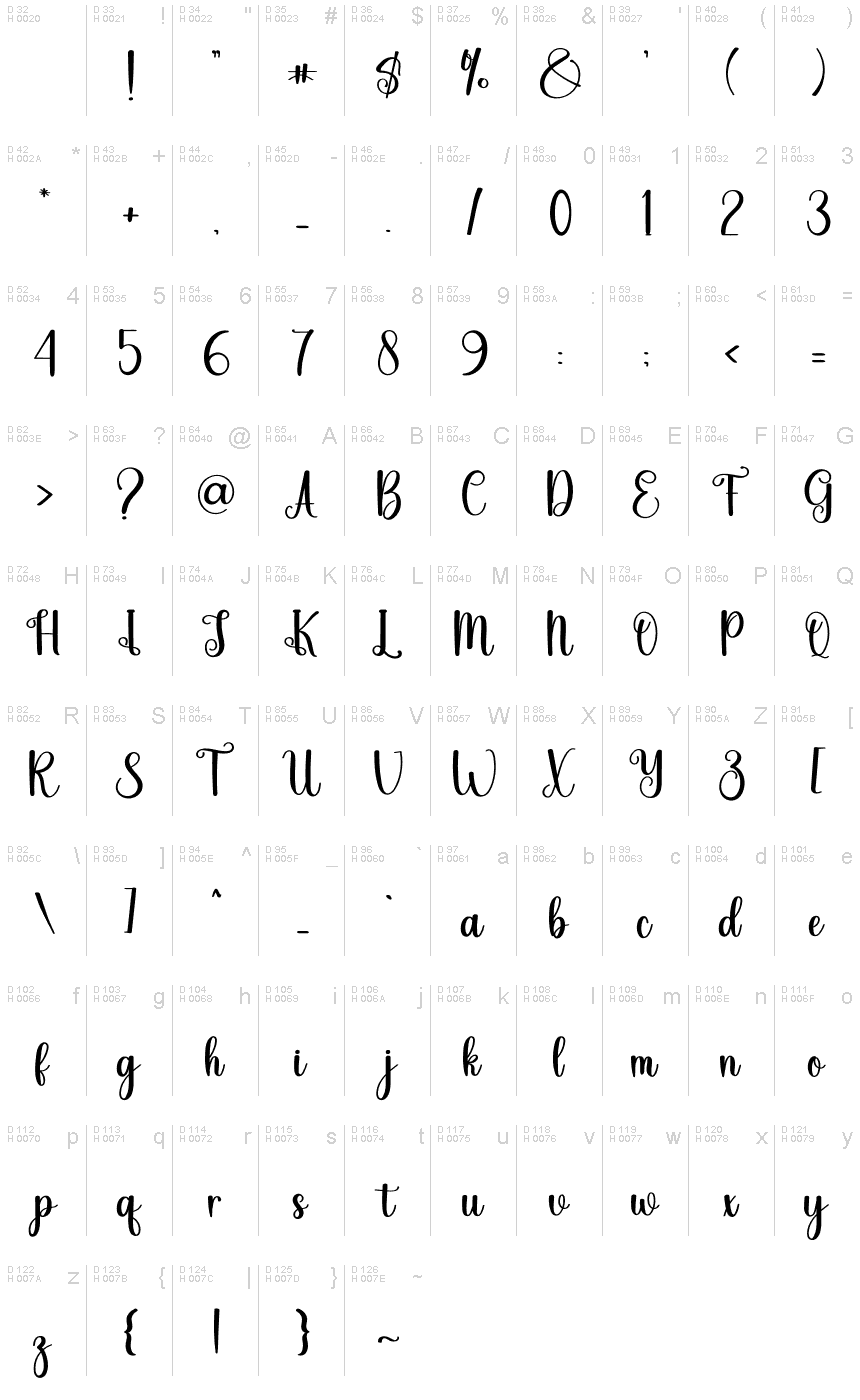
Pink Love
Pink Love, designed by FreshtypeINK, is a captivating handwritten font that adds a touch of romance and whimsy to your projects. Its semi-condensed width makes it versatile and ideal for a wide range of creative endeavors. Use Pink Love to infuse invitations with an enchanting charm, craft unique logos that exude femininity, or create stunning social media graphics that catch the eye. This delightful font is perfect for wedding stationery, fashion blogs, beauty brands, and anything in need of a dash of playful elegance. Let Pink Love be the enchanting voice that speaks directly to your audience's hearts.